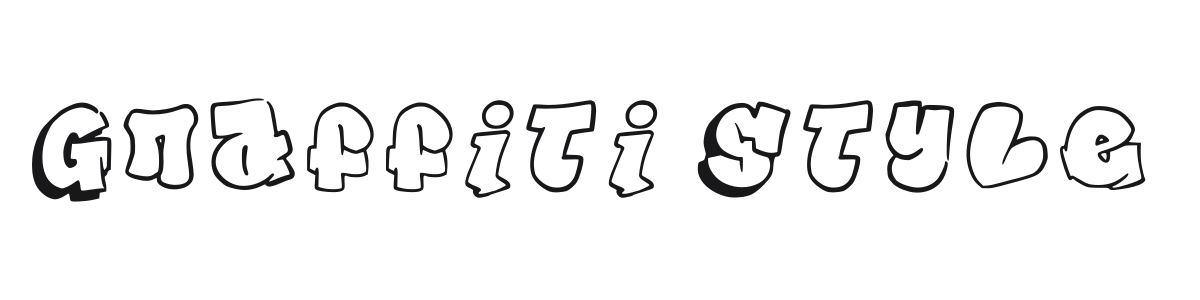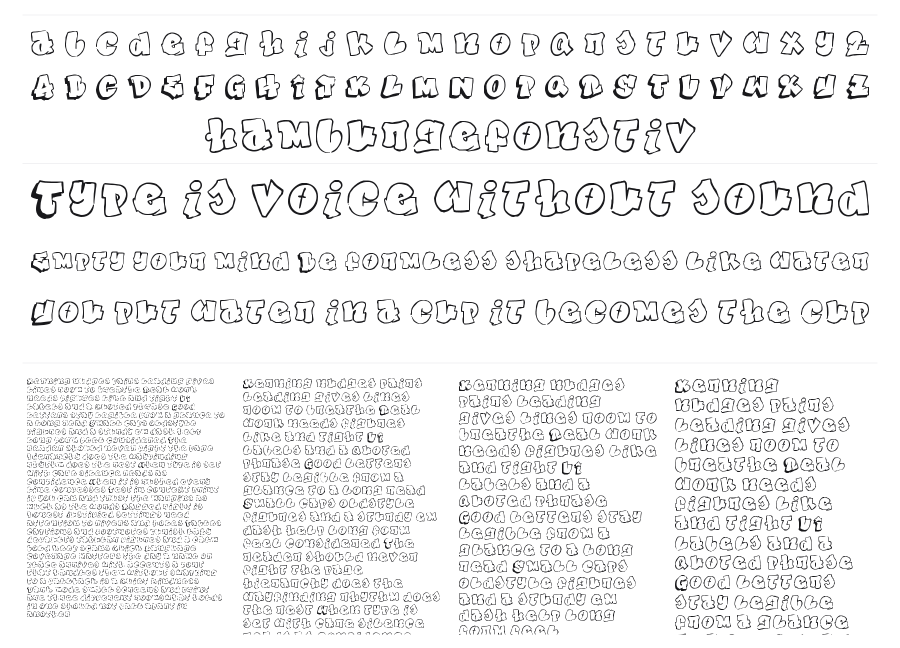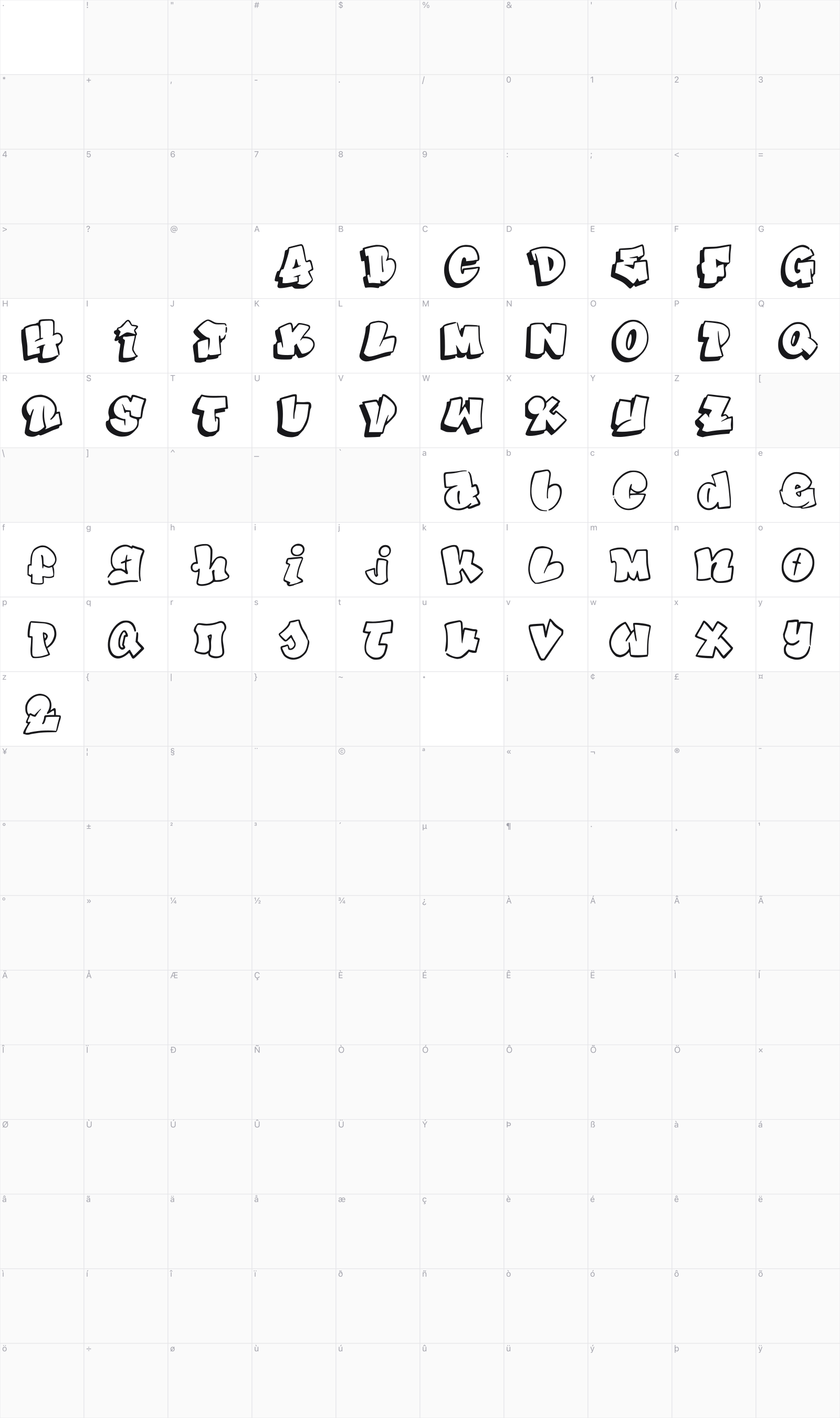
Graffiti Style
Graffiti Style is a bold outline bubble-letter font drawn directly from the visual language of street graffiti. Each character is thick, rounded, and slightly irregular, with an inline white stroke that gives the letters that classic spray-painted feel. Built for large sizes, posters, and anything that needs an unmistakable urban edge.